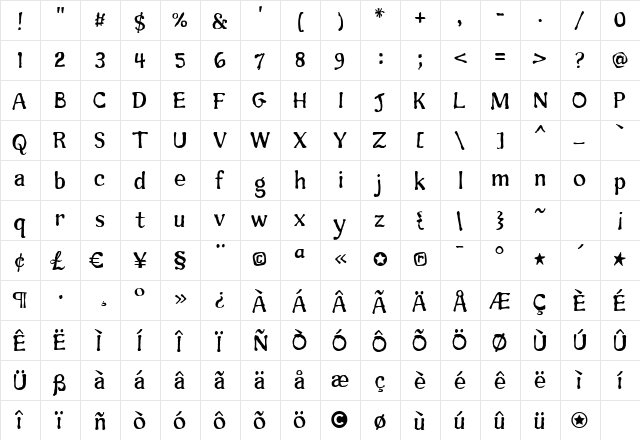
Sunshine Regular
Design Context for Sunshine Typeface
Sunshine takes a measured approach to typography — its balanced proportions and neutral character make it a reliable workhorse for both digital and print work.